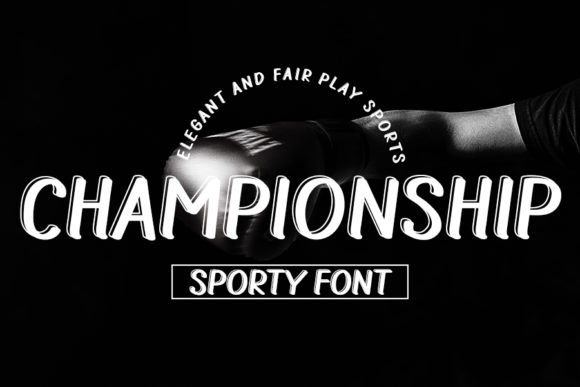
Unleash Your Winning Design
Have you ever felt that rush of excitement when your creative idea finally comes together? The thrill of seeing your vision take shape, the sense of pride in knowing you’ve created something truly special – it’s a feeling like no other. As designers, we’re constantly pushing ourselves to create something new, something that stands out from the crowd. And that’s where the Championship Font comes in – a font that’s been masterfully designed to help you take your designs to the next level.
With its authentic and neat lettered display, the Championship Font is the perfect tool for any designer looking to elevate their work. Whether you’re creating a logo, a marketing campaign, or simply a beautiful piece of typography, this font has the potential to bring your ideas to life in a way that’s both visually stunning and emotionally resonant. As a valuable asset for any designer’s toolkit, the Championship Font is a must-have for anyone looking to create truly championship-winning designs.
Championship Font Key Features
- Font Family: Championship Font is a modern sans-serif font designed specifically for sports and athletic branding.
- Unique Characteristics: Championship Font features a bold, dynamic design with exaggerated letterforms, making it highly recognizable and memorable.
Championship Font Review
As a designer, I was excited to dive into the Championship Font and see what it had to offer. ✨ One of the first things that caught my eye was the bold, energetic feel of the font. It’s perfect for creating attention-grabbing headlines and titles. The font also works well for sports-related designs, which makes sense given its name.
However, there are some limitations to the Championship Font. ⚠️ One of the main issues is that it can be difficult to read at smaller font sizes. The font’s boldness can make it feel cluttered and overwhelming in certain contexts.
Overall, I’d say the Championship Font is a solid choice for designers looking to add a touch of energy and excitement to their designs. While it may not be perfect, its strengths far outweigh its limitations. With a little creative planning, you can use this font to create some truly show-stopping designs.
Tips for Getting the Most Out of Championship Font
Use Championship Font for headings, titles, and emphasis. It’s ideal for sports-related designs, but can also be used for other high-energy themes.
Combine Championship Font with bold or italic styles for added emphasis.
Championship Font is commonly used in:
- Sports branding and marketing materials
- Event promotions and signage
- High-energy social media graphics
Alternatives to Championship Font
Fontin is a serif font designed by Robert Slimbach in 1989. It’s a classic font suitable for formal documents, books, and academic papers. Fontin has a more elegant and refined look compared to Championship Font, which is bolder and more dramatic. Use Fontin when you need a professional and sophisticated look.
Playfair Display is an elegant and luxurious serif font designed by Claus Eggers Sørensen in 2010. It’s perfect for titles, headings, and other display text where you want to make a statement. While Championship Font is bold and attention-grabbing, Playfair Display is more refined and sophisticated. Use Playfair Display when you need a high-end and luxurious look.
Didot is a classic serif font designed by Firmin Didot in 1784. It’s a timeless and elegant font suitable for formal documents, books, and high-end publications. Didot has a more refined and subtle look compared to Championship Font, which is bolder and more dramatic. Use Didot when you need a classic and sophisticated look.